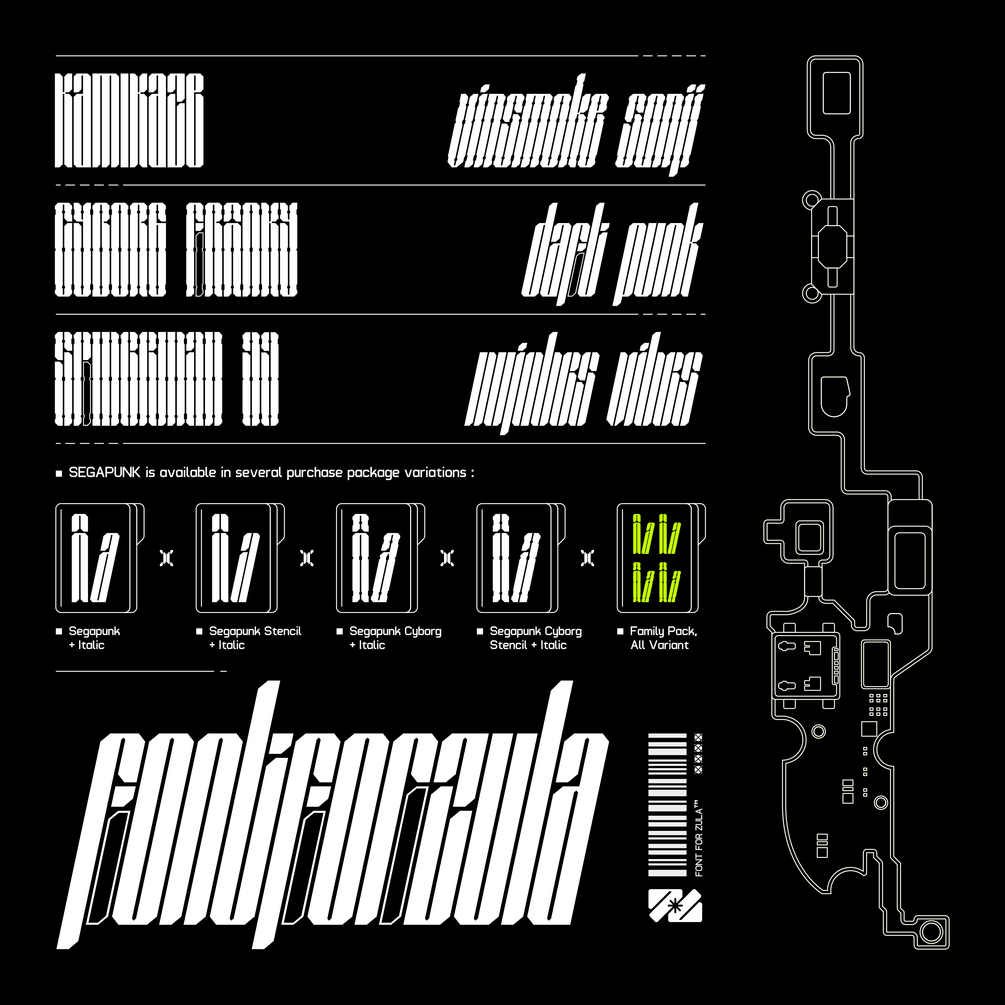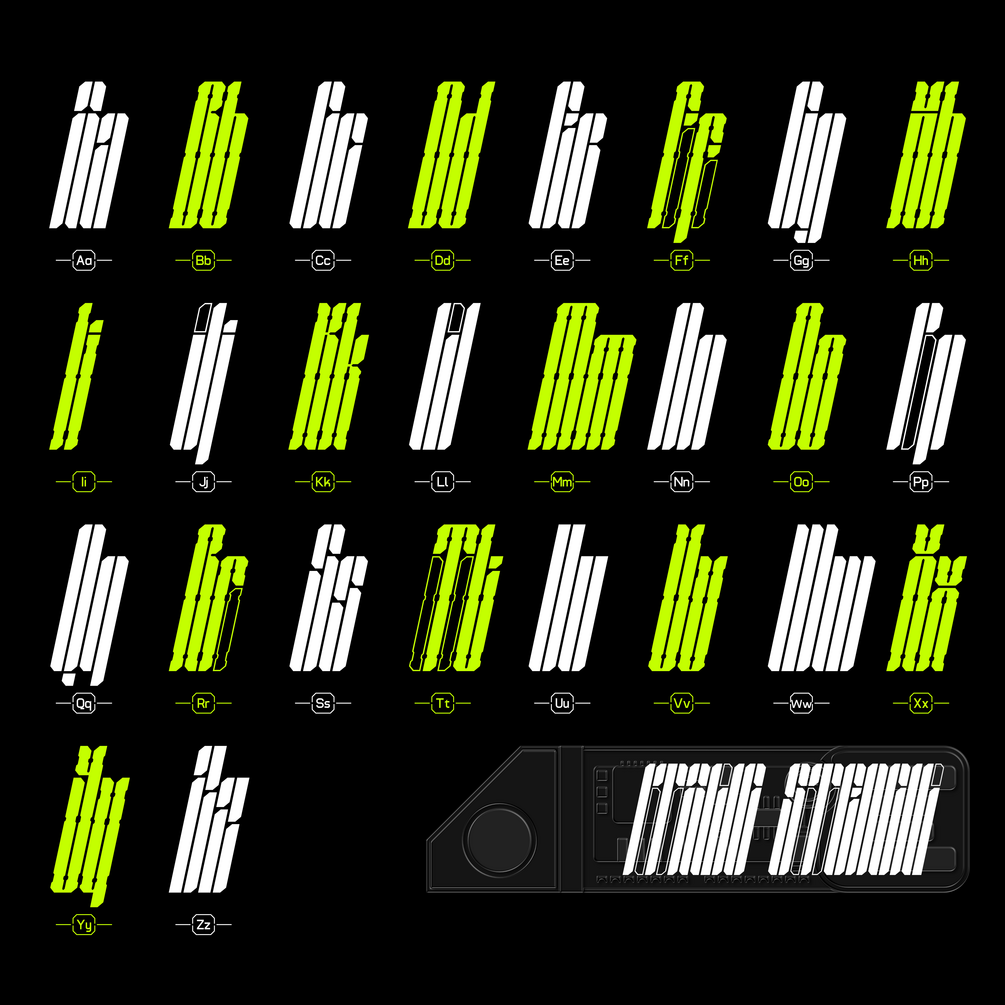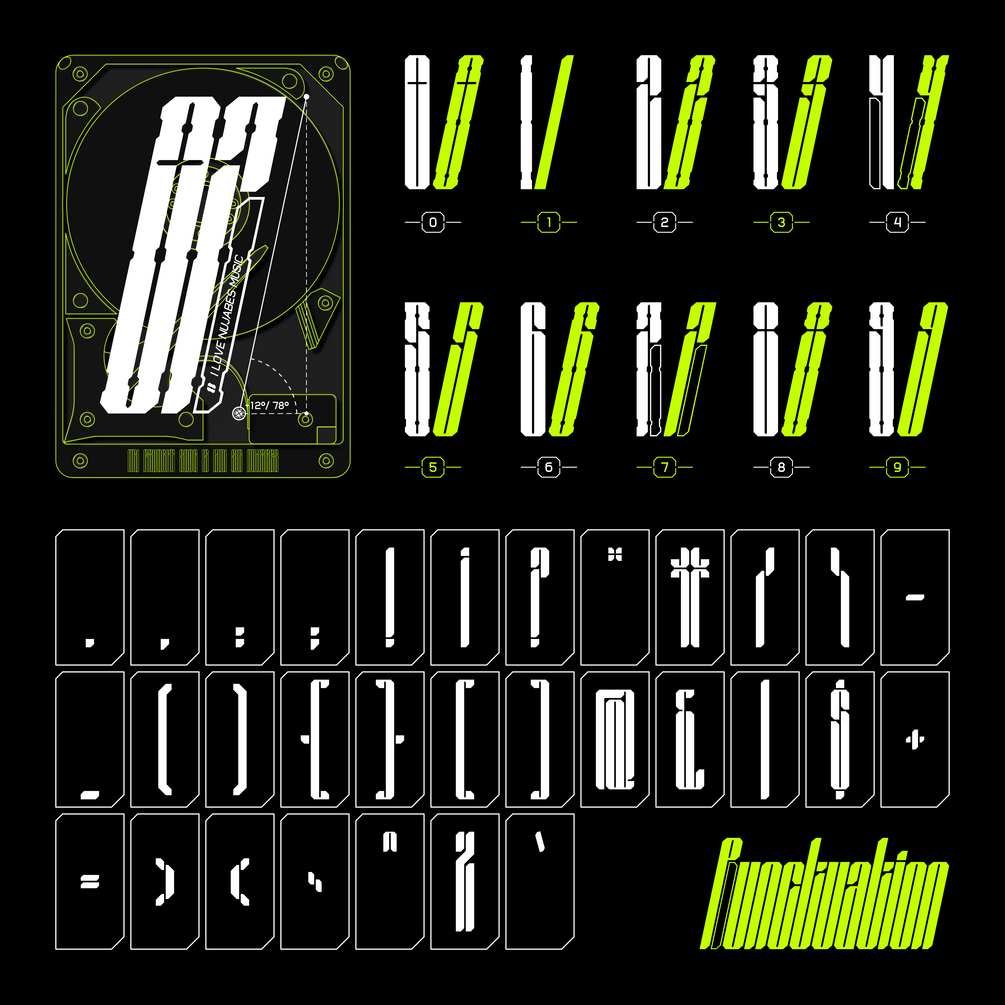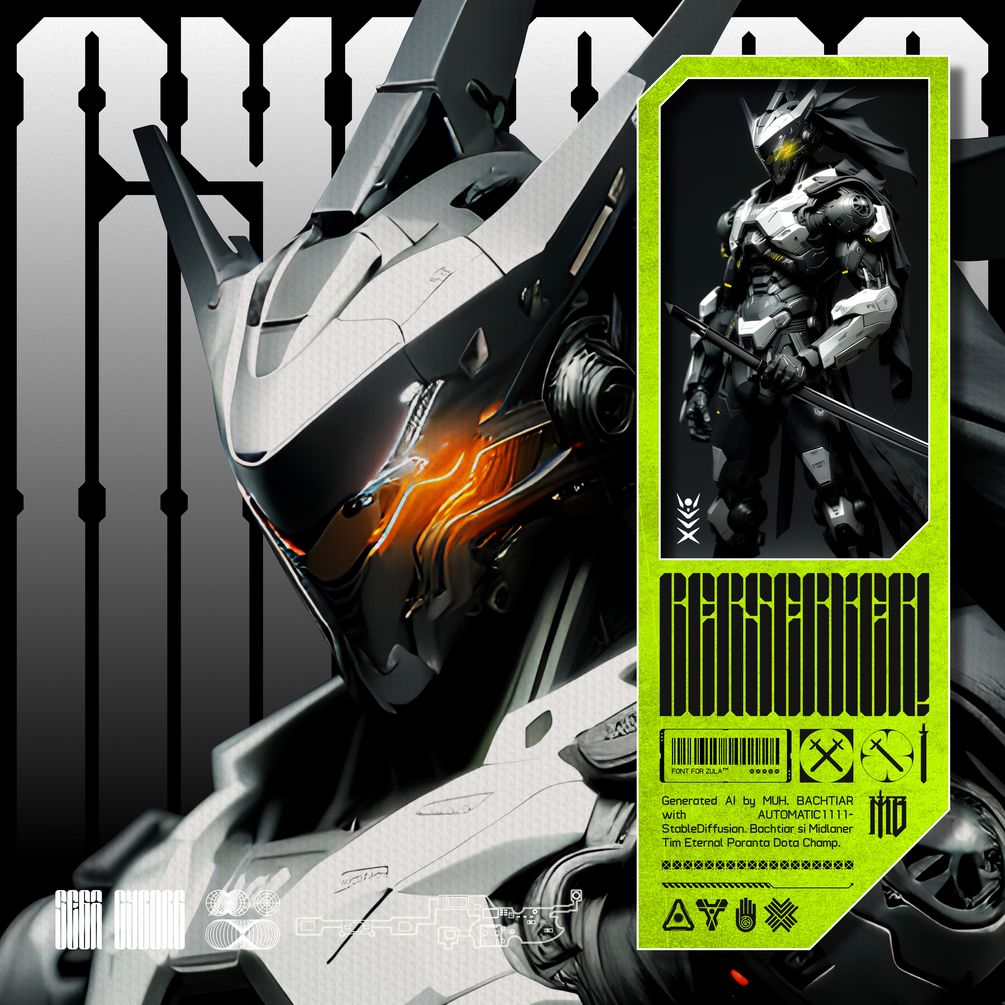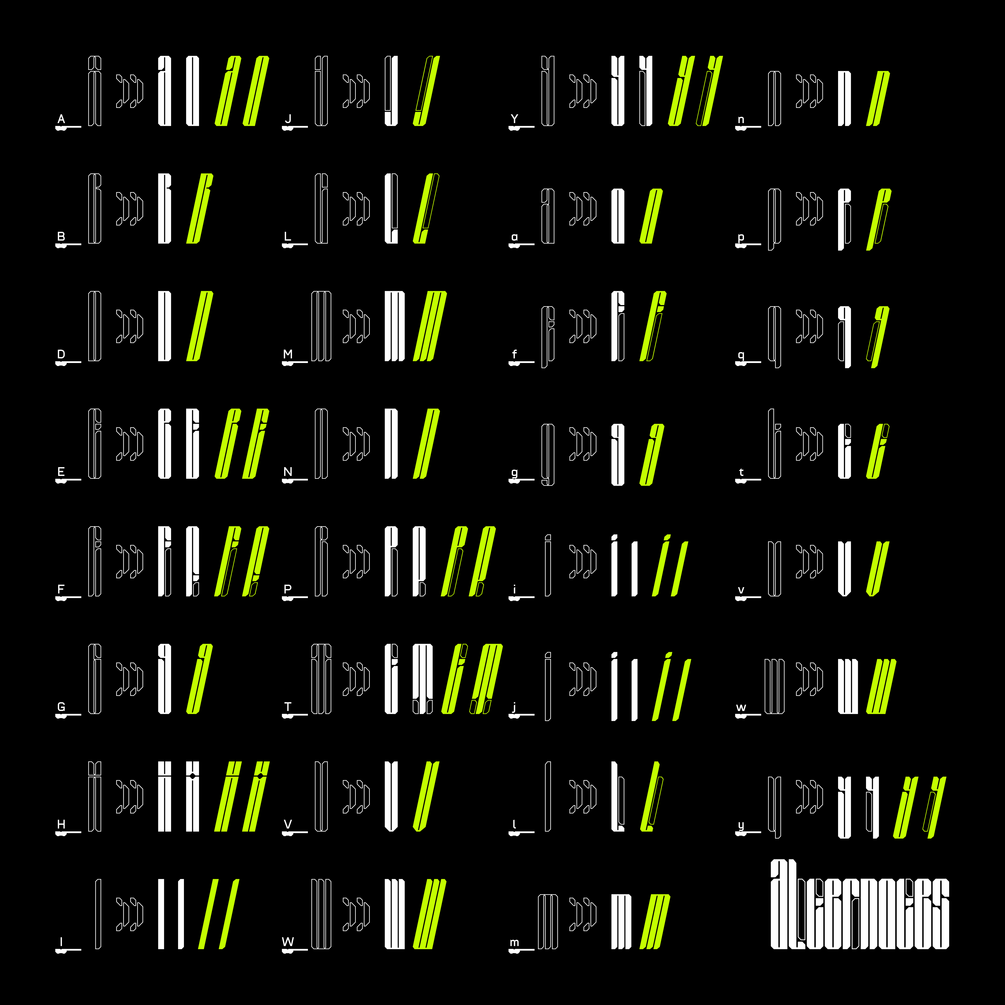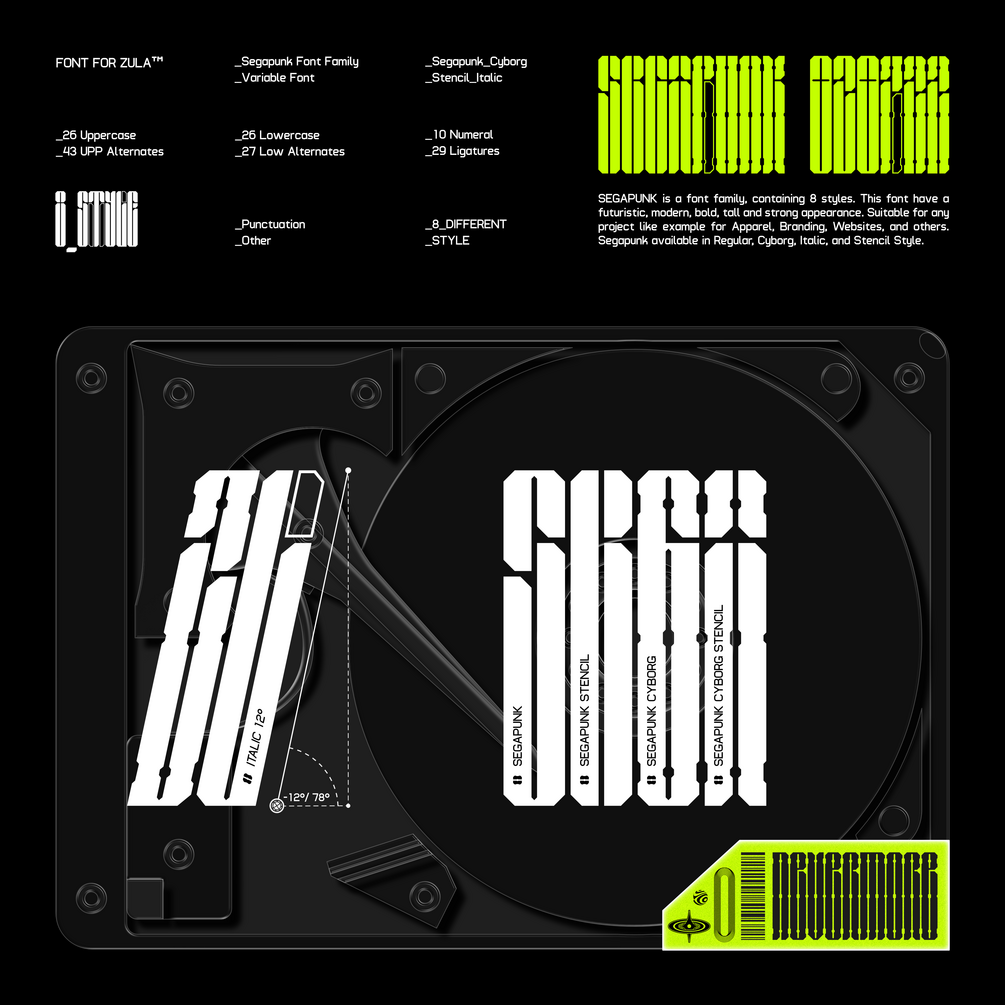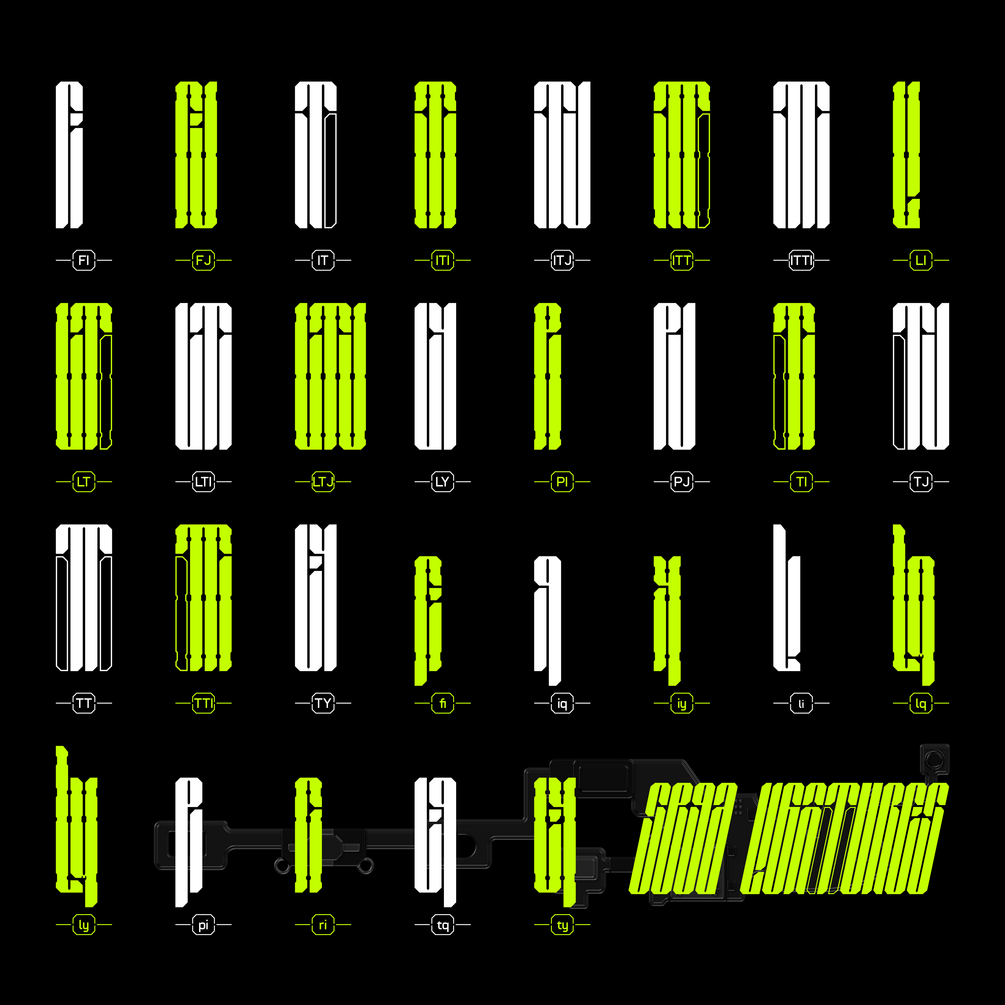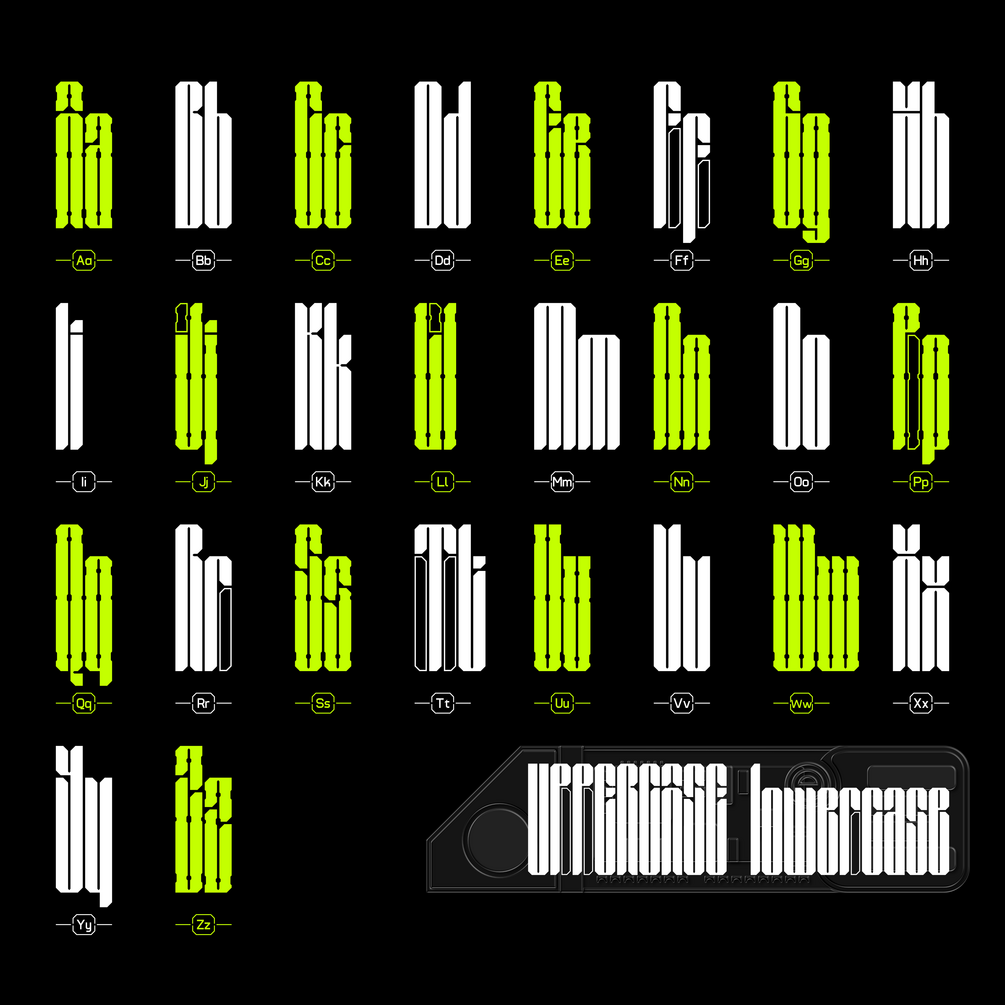
SEGAPUNK FONT FAMILY
SEGAPUNK is a futuristic font family, containing 8 styles. This font has a futuristic, modern, bold, tall and strong appearance. Suitable for projects that use a futuristic, unique, and strong impression. Like examples for Apparel, Branding, Websites, and others. Segapunk is available in Regular, Cyborg, Italic, and Stencil Style.
• 8 Different Style :
• Segapunk,
• Segapunk Cyborg,
• Segapunk Stencil,
• Segapunk Cyborg Stencil,
• Italic Segapunk,
• Italic Segapunk Cyborg,
• Italic Segapunk Stencil,
• Italic Segapunk Cyborg Stencil
• 43 Uppercase Alternates
• 27 Lowercase Alternates
• 29 Ligatures